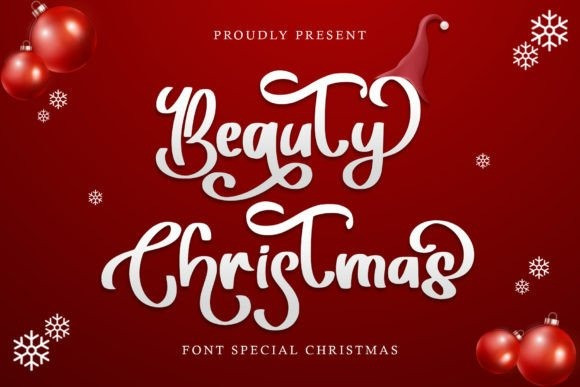
Beauty Christmas Font
Beauty Christmas Script Font is a sweet and festive handwritten script font. No matter the topic, this font will be an incredible asset to your fonts’ library, as it has the potential to elevate any creation. This font is PUA encoded which means you can access all the glyphs and ligatures with ease!